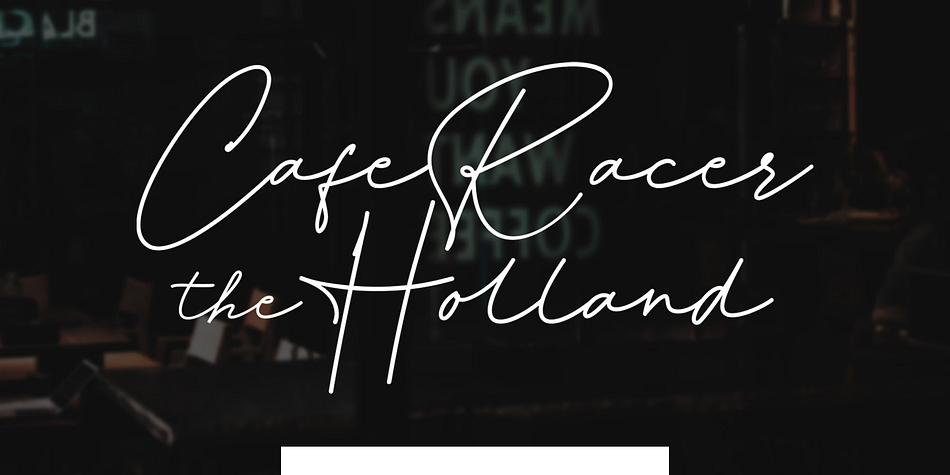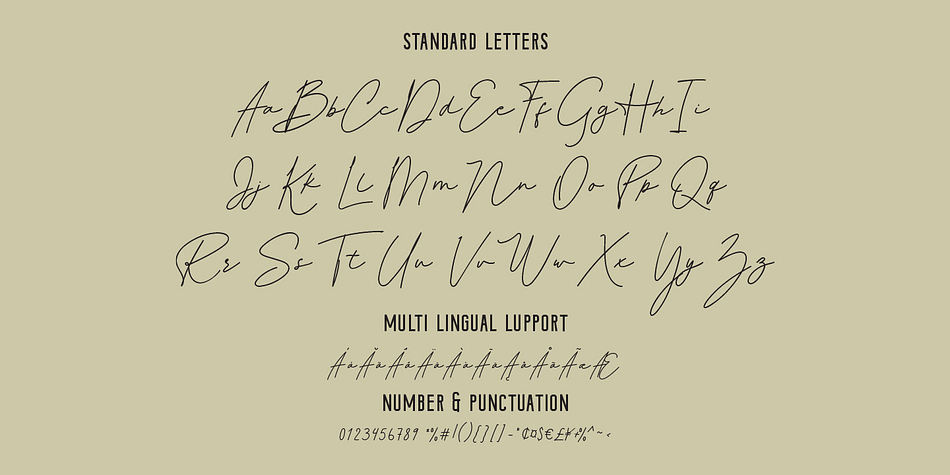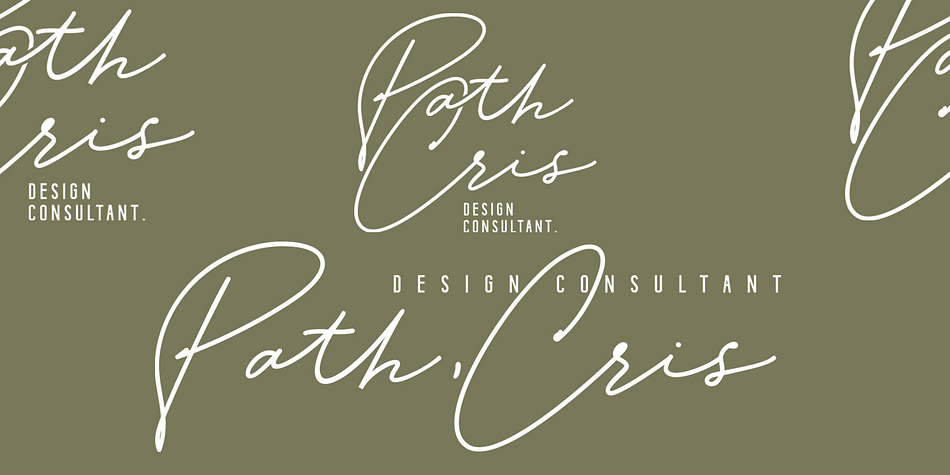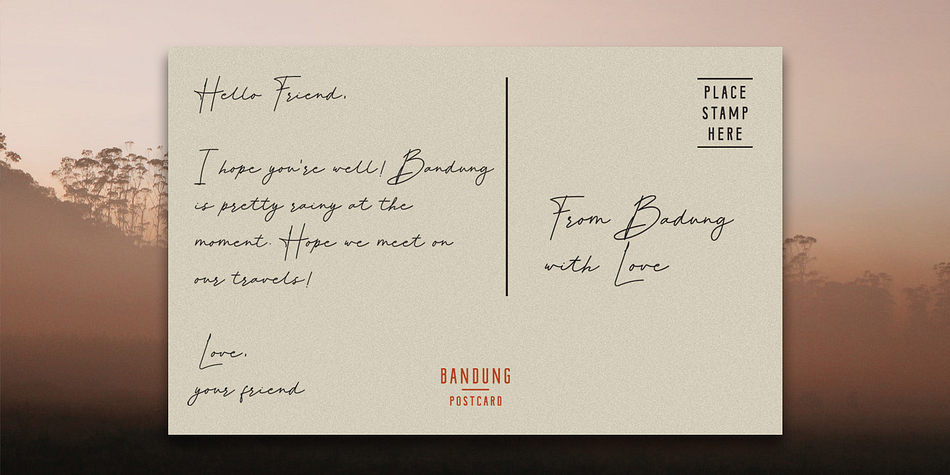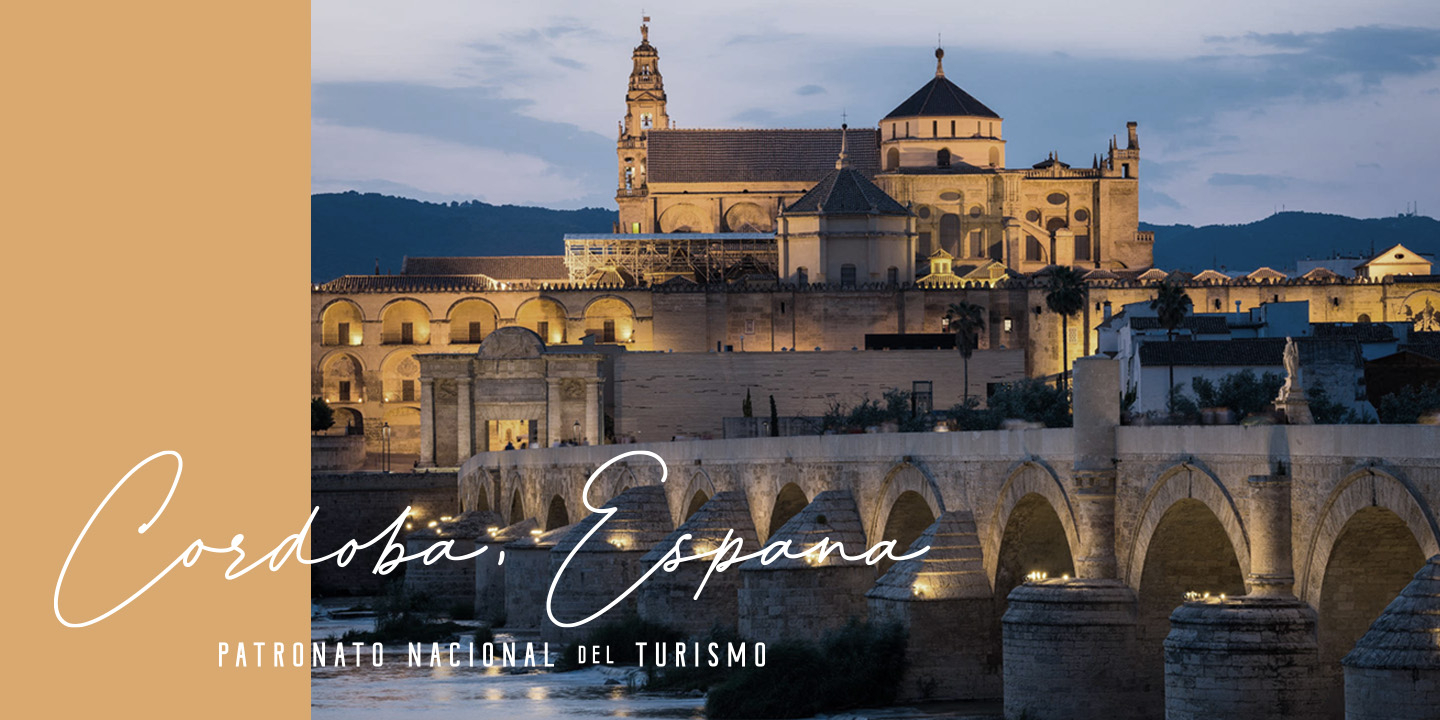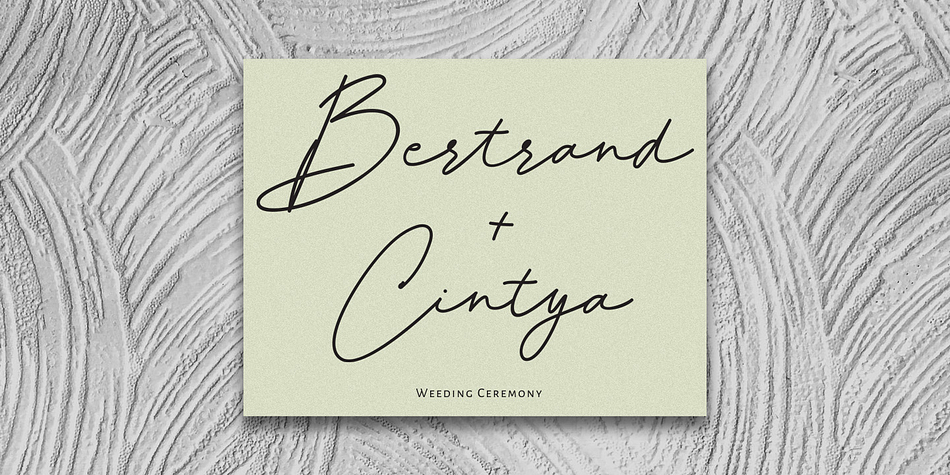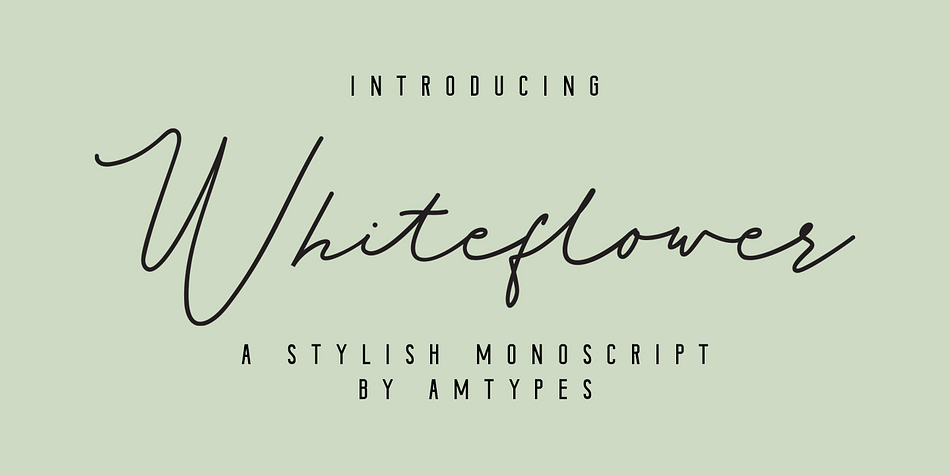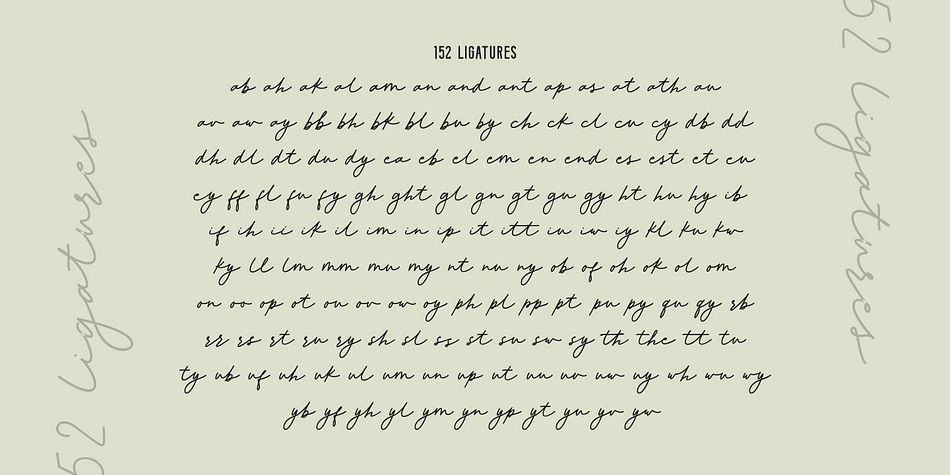
Whiteflower
Designed by Angga Mahardika, Whiteflower is a hand drawn, modern calligraphy and script font published by Angga Mahardika.
Whiteflower is a monoscript font with clean look. It is perfect for branding, wedding invites and cards, and maybe for label.
Whiteflower includes full set of gorgeous uppercase and lowercase letters, numerals, a large range of punctuation and 152 ligatures.